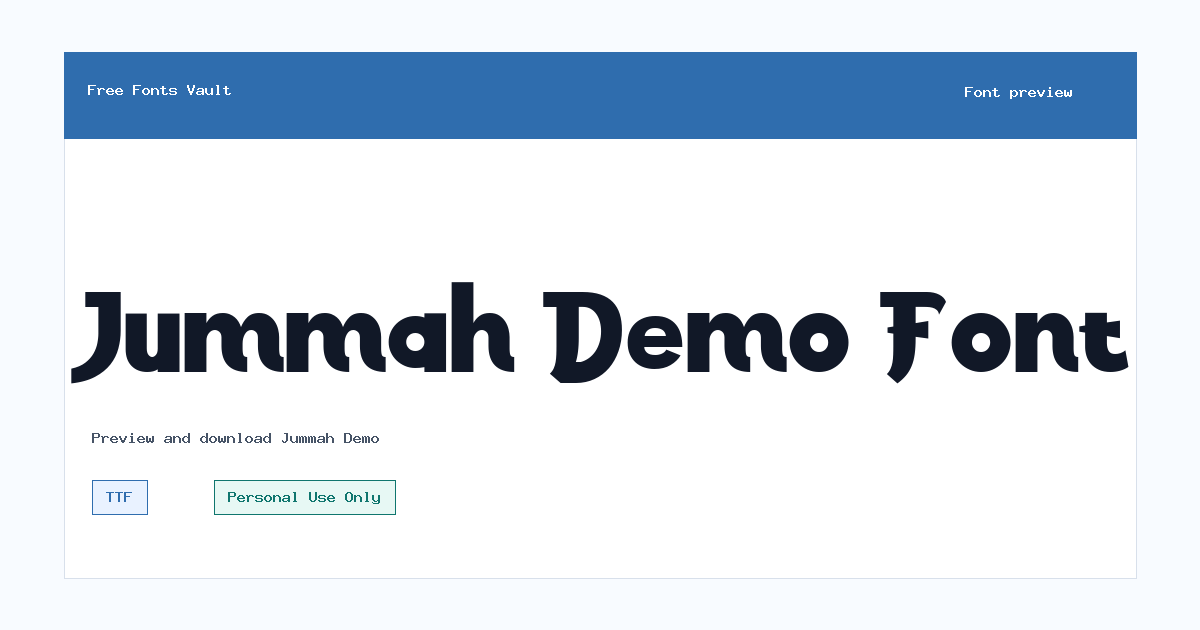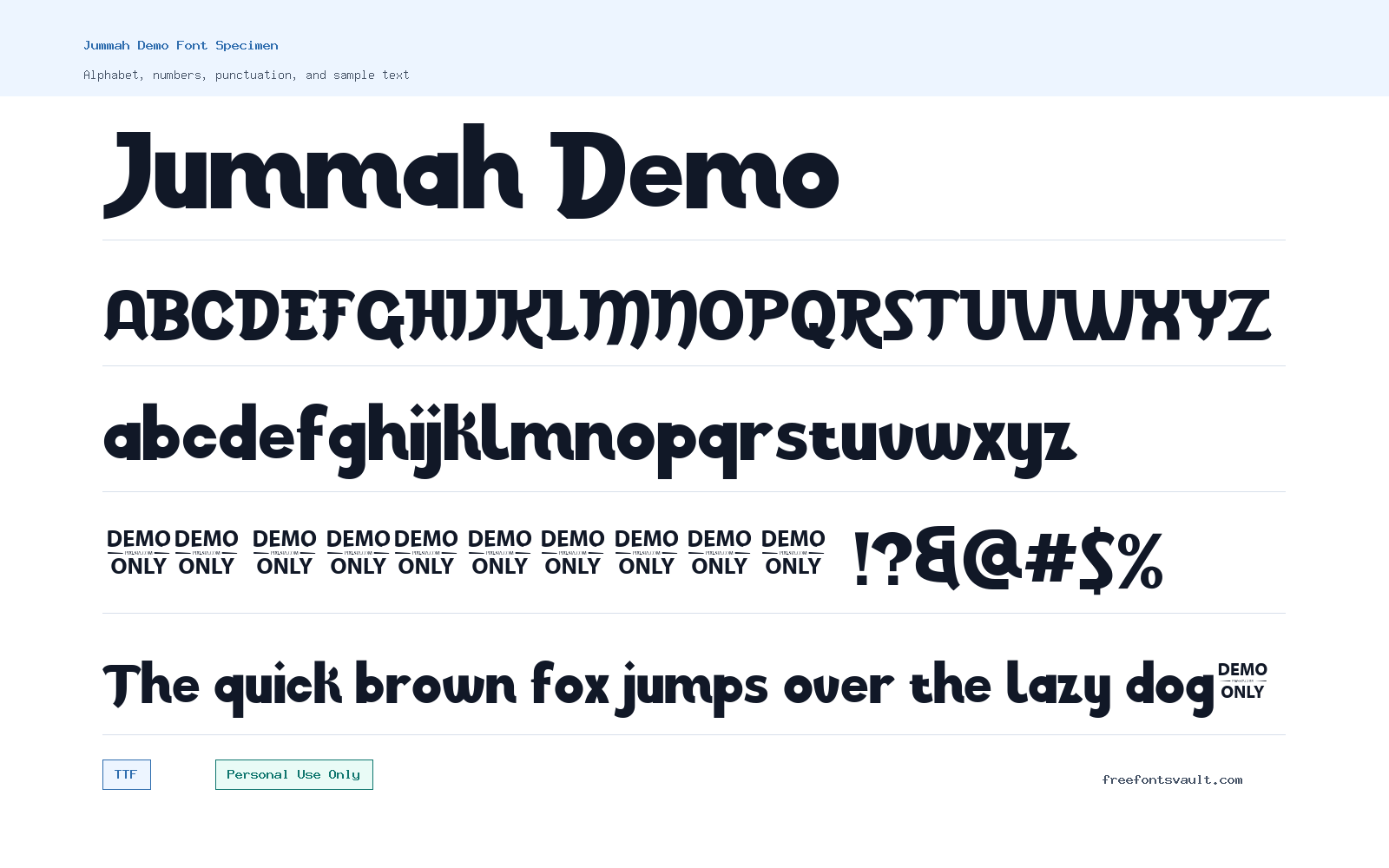
Jummah Demo
- Designer Abul Almaududi
- Foundry Pixesia Studio
Jummah Demo font.
Jummah Demo is a display font with a decorative character that works best when you want lettering to feel distinct rather than neutral. It is offered as a TTF font file and is marked for personal use only, so it is a good choice for testing ideas, personal artwork, and non-commercial design drafts.
About Jummah Demo
Jummah Demo is the kind of font to try when plain sans serif or serif lettering feels too ordinary for the job. The name and license label connect it with the Jummah Arabic Font release, so it may suit projects where a culturally expressive or ornamental display style is useful. Since the font listing do not describe the full character set or language support, the safest approach is to test your exact words in the preview before using it in a finished design. Pay close attention to spacing, letter shapes, punctuation, numbers, and any special characters you need.
Use Jummah Demo for short, high-impact text rather than long paragraphs. It can work well for poster titles, social graphics, invitation headings, religious event mockups, personal logo studies, cover art concepts, and web hero previews. If you are building a logo or brand concept, treat this demo as an exploration font first and confirm licensing before any public or paid use. For layouts, pair it with a quiet supporting typeface so the main lettering has room to stand out. A simple sans serif is usually the safest companion for body copy, captions, buttons, and navigation.
- Display-focused personality for headings, short titles, poster text, and logo mockups.
- Designed for attention-grabbing text where the font choice is part of the visual message.
- Personal poster designs and event graphics
- Logo concepts and brand-name experiments
- Invitation headings and short decorative titles
- Social media artwork and quote graphics
- Website hero mockups and landing-page title tests
- Cover art concepts, thumbnails, and display typography studies
Jummah Demo is credited to Abul Almaududi, with Pixesia Studio listed as the foundry. The designer link points to Pixesia.
Start by previewing the exact text you plan to use. Check whether the font handles uppercase, lowercase, numbers, punctuation, and any language-specific characters you need. Keep it large enough to show its shape clearly, and avoid using it for dense body text. For web mockups, use it in hero headings or graphic assets while pairing it with a more readable font for paragraphs and interface labels. If you are testing a logo, export several spacing options and compare them at small sizes before deciding whether the style remains clear.
Is Jummah Demo good for long paragraphs?
It is better for short display text. For paragraphs, captions, and interface copy, pair it with a simpler, highly readable font.
Who designed Jummah Demo?
The font is credited to Abul Almaududi, and Pixesia Studio is listed as the foundry.